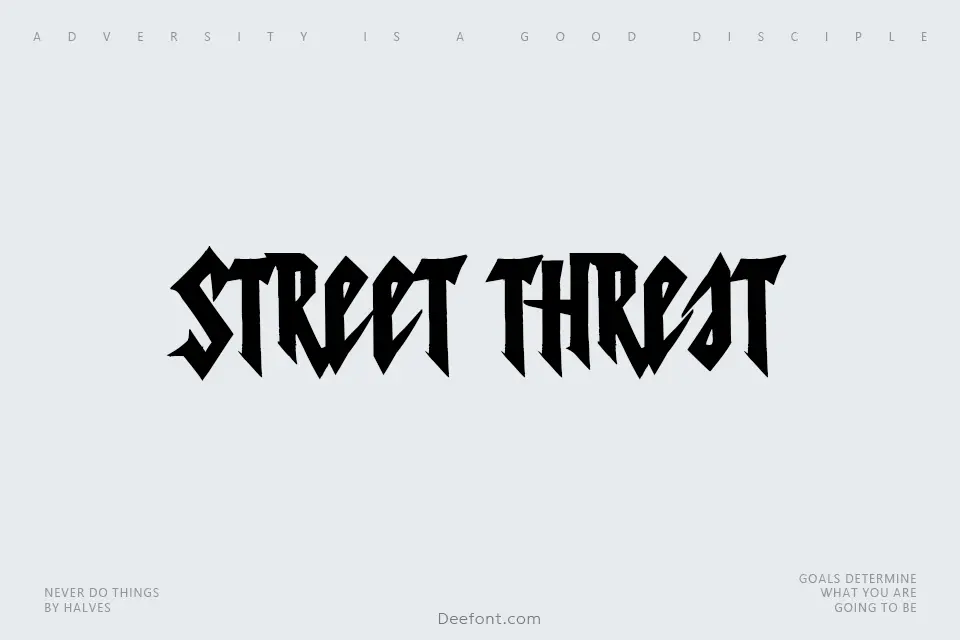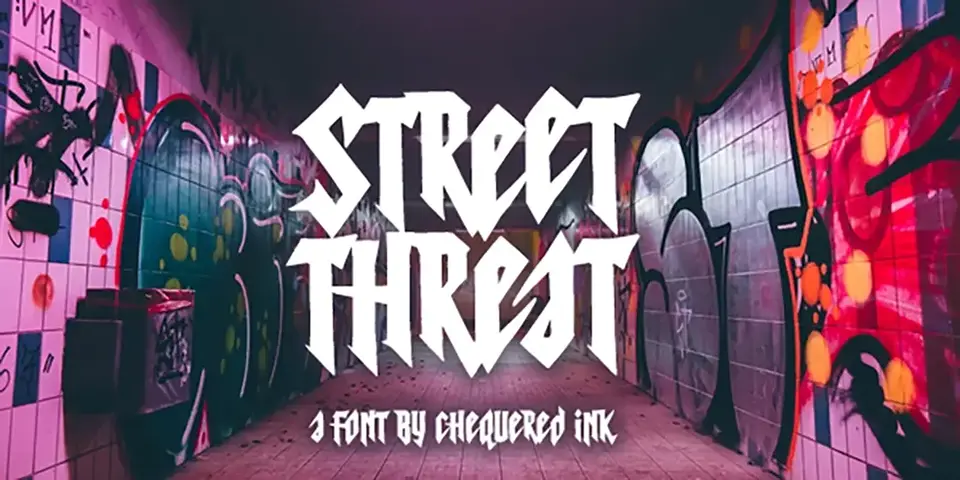
Street Threat Font
Street Threat is a bold and edgy graffiti-inspired typeface that brings urban street art aesthetics to your creative projects. Designed with strong angular forms and sharp edges, this script font combines rebellious street style with modern typography. Perfect for creating attention-grabbing headlines, posters, album covers, and branding projects, Street Threat delivers a fierce visual impact that captures the essence of contemporary urban design and makes your designs stand out with authentic street culture vibes.